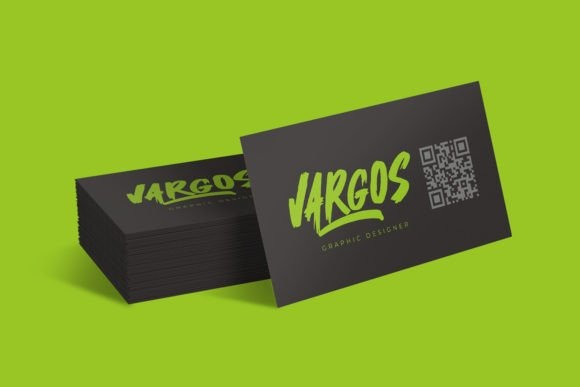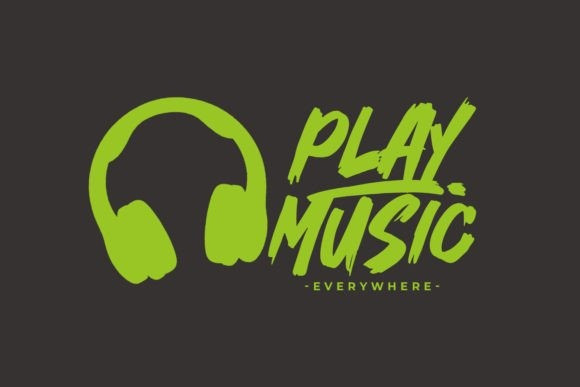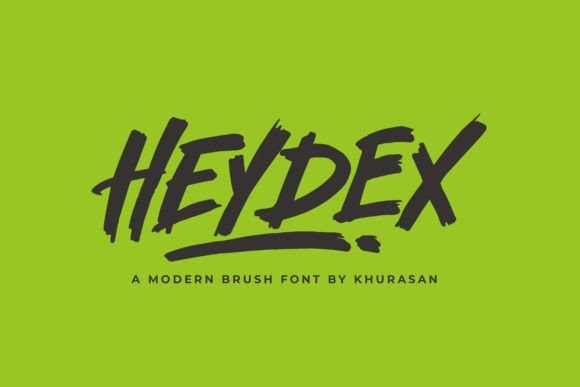
Heydex Brush Font
Heydex Brush Font is a modern bold brush font perfect for posters, logos, magazines, book covers, banners, and many more! Get this quirky display font, and use it to create lovely designs! It can easily be matched to an incredibly large set of projects, so add it to your creative ideas and notice how it makes them stand out!